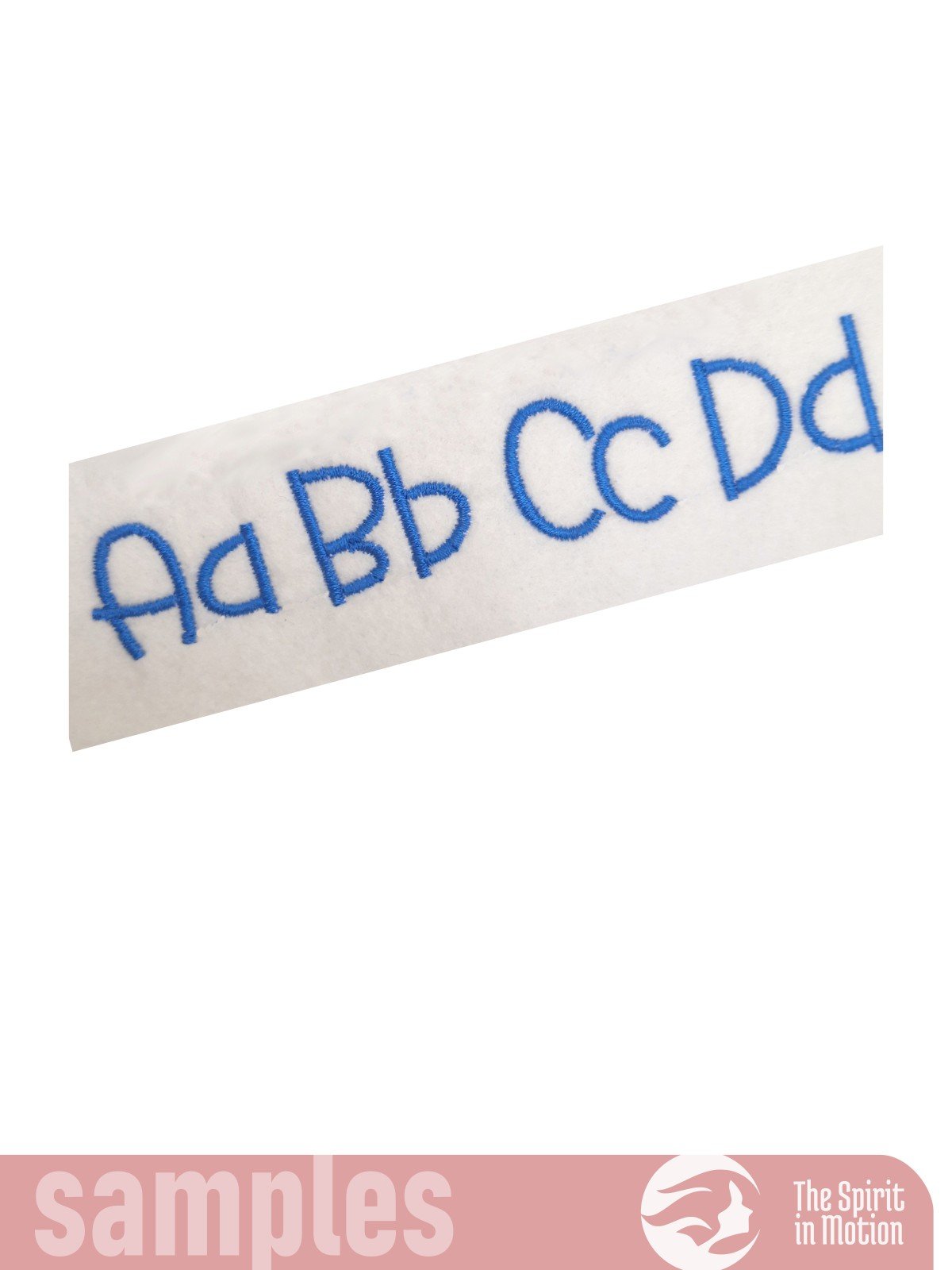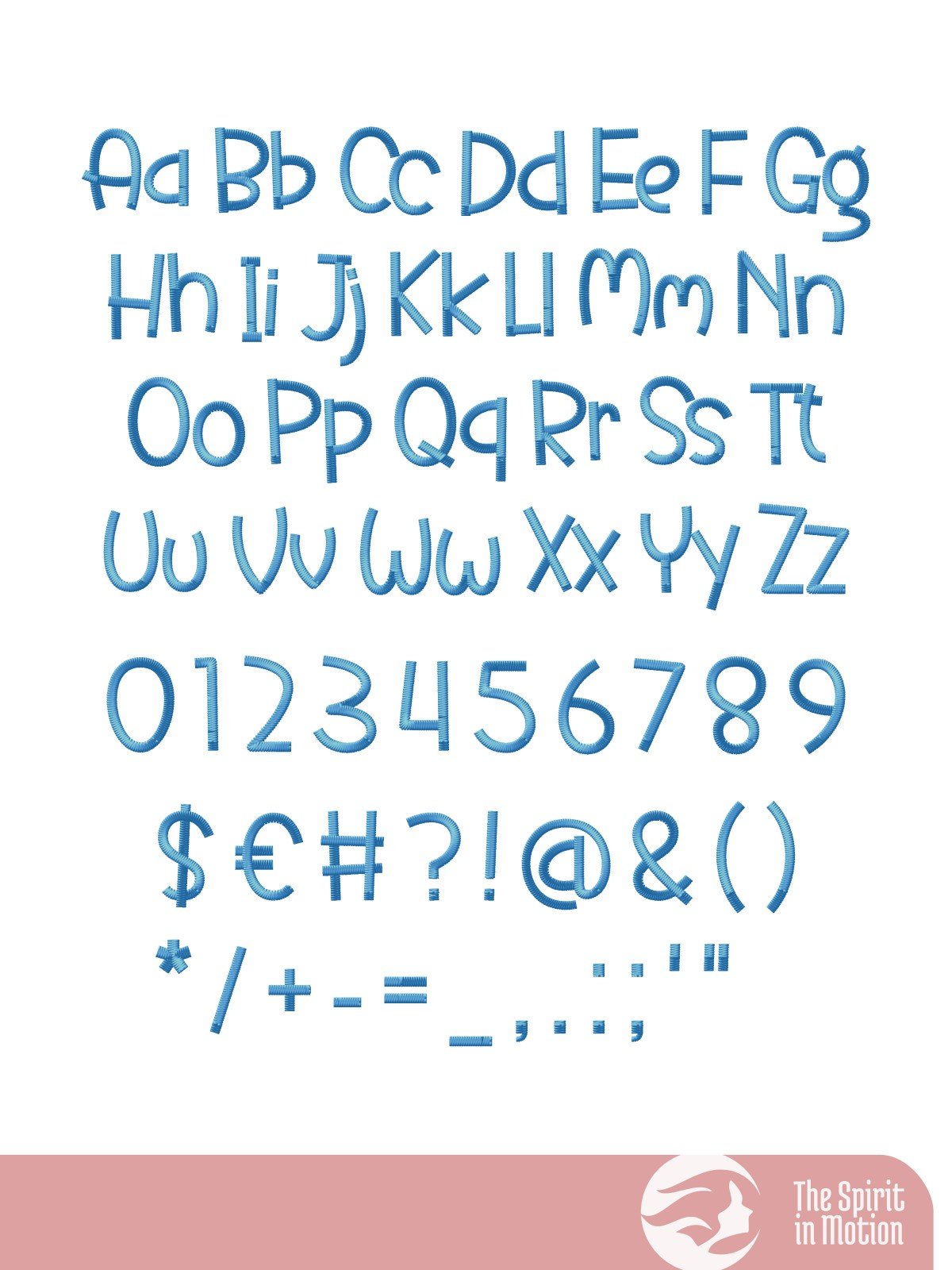
Add a stylish and modern flair to your embroidery projects with the Cute Umbrella font. Perfect for personalizing children's apparel, clothing, accessories, or home décor, its flowing script design adds elegance and charm to monograms, quotes, and decorative details. The listed sizes refer to the approximate height of uppercase letters, though adjustments may be needed depending on your specific project and machine settings.